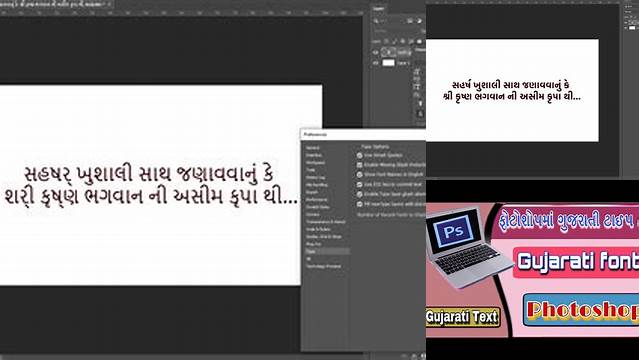
Gujarati Fonts For Photoshop CC: Free Download Guide
Understanding Gujarati Fonts for Photoshop CC
Hey guys! So you're looking to jazz up your designs with some awesome Gujarati fonts, specifically for Photoshop CC? That's a fantastic idea! Gujarati script has such a rich history and beautiful aesthetic, and incorporating it into your creative projects can really make them stand out. Whether you're a graphic designer, a blogger, or just someone who wants to express themselves in Gujarati, having access to a variety of high-quality Gujarati fonts is key. Photoshop CC, being the industry standard for image editing and design, offers a powerful platform to work with these fonts. However, the process of finding, downloading, and installing them can sometimes feel a bit daunting, especially if you're new to it. Don't worry, though! This guide is here to walk you through everything you need to know. We'll cover where to find free Gujarati font downloads, how to ensure they're compatible with Photoshop CC, and the best practices for using them to achieve stunning visual results. We'll dive into different font styles that capture the essence of Gujarati culture, from traditional calligraphy to modern, clean sans-serifs. By the end of this, you'll be a pro at integrating these beautiful scripts into your digital creations, making your designs not only informative but also visually captivating. Let's get started on unlocking the full potential of Gujarati typography in your Photoshop workflow!
Exploring Different Gujarati Font Styles
Alright, let's talk about the sheer variety of Gujarati font styles you can find out there, guys. It's not just about having letters; it's about the feel and character each font brings to your design. When you're looking for Gujarati fonts for Photoshop CC, you'll discover a spectrum that ranges from the deeply traditional and ornate to the sleek and contemporary. Think about the classic, flowing calligraphy that evokes a sense of heritage and elegance. These fonts often have intricate curves and flourishes that are perfect for invitations, religious texts, or designs aiming for a vintage appeal. Then, you have the more modern, minimalist sans-serif Gujarati fonts. These are fantastic for digital interfaces, branding, headlines, and any project where readability and a clean aesthetic are paramount. They offer a crisp, clear look that's easy on the eyes, even in smaller sizes. Some fonts might mimic the look of handwritten Gujarati, giving your work a personal and authentic touch. Others are designed with specific purposes in mind, like display fonts that are bold and impactful for large-format designs or body text fonts that ensure maximum legibility for longer passages. Understanding these different categories will help you choose the perfect font to match the mood and message of your project. Don't be afraid to experiment! Trying out various styles of Gujarati fonts is part of the fun and essential for developing your unique design signature. Remember, the right font can transform a good design into a great one.
Using Gujarati Fonts Effectively in Photoshop CC
Now that you've got your Gujarati fonts installed in Photoshop CC, let's talk about using them like a pro, guys! It's not just about slapping text on a canvas; it's about making that text sing. When you select your Gujarati font using the Text Tool, pay attention to the Character panel. This is where the magic happens. You can adjust the font size, leading (line spacing), kerning (space between specific characters), and tracking (overall letter spacing) to create beautiful typographic arrangements. For Gujarati script, proper kerning and tracking can be especially important to ensure readability and aesthetic balance, as the script has its own unique shapes and connections. Don't forget about OpenType features if your font supports them! Many advanced Gujarati fonts offer alternate character designs, ligatures (combined characters), or swashes that can add a unique flair. You can usually access these through the Glyphs panel in Photoshop (Window > Glyphs). Experiment with different font weights and styles if your chosen font family offers them – a bold Gujarati font for a headline can be very impactful. Also, consider the color of your text. Contrasting colors against your background are essential for readability. Remember to utilize Photoshop's layer styles! Effects like drop shadows, outlines (stroke), or glows can add depth and dimension to your Gujarati text, making it pop. Finally, always preview your text in the context of your overall design. Does it complement the images? Does it convey the intended message clearly? Effective use of Gujarati fonts is all about balancing aesthetics with legibility and ensuring the typography enhances, rather than distracts from, your design's message.
Optimizing Gujarati Text in Your Designs
Let's dive deeper into making your Gujarati text look amazing in Photoshop CC, guys. Beyond just picking a font, there are several techniques you can employ to really optimize the appearance and impact of your Gujarati typography. Firstly, readability is king. No matter how fancy a font looks, if people can't easily read the Gujarati words, your design won't be effective. Ensure sufficient contrast between your text color and background. Test different font sizes and weights to find what works best for the intended viewing distance – a font that looks great on a billboard might be illegible on a business card. Consider the layout too. Use the paragraph settings in Photoshop to control alignment, indentation, and hyphenation (though hyphenation rules for Gujarati might differ, so be mindful). Sometimes, adjusting the baseline shift for specific characters or words can help improve the visual flow, especially with scripts that have varying ascender and descender heights. Creative text effects can also elevate your design. Experiment with gradients within your text to add subtle or bold color transitions. Using the 'Warp Text' feature can create interesting curved or distorted text effects, but use this sparingly to maintain legibility. Remember layering! Placing text on top of images often requires a subtle background element, like a semi-transparent shape or a slight blur on the image behind the text, to ensure it stands out clearly. Always zoom in to check for any rendering issues or awkward spacing. Optimizing your Gujarati text ensures your message is not only seen but also understood and appreciated. It’s all about making that Gujarati script shine.
Choosing the Right Gujarati Font for Your Project
Selecting the perfect Gujarati font for your specific project is a critical decision, guys. It's like choosing the right outfit for an occasion – it needs to match the vibe and purpose. Think about the context: Is this for a formal wedding invitation? A vibrant festival poster? A modern corporate website? Or perhaps a personal blog post? Each scenario calls for a different typographic approach. For formal or traditional designs, opt for fonts that echo classic Gujarati calligraphy or have a dignified, serif-like quality. These fonts convey respect, heritage, and a sense of occasion. If your project is contemporary, minimalist, or aimed at a younger audience, clean sans-serif Gujarati fonts are usually the way to go. They project modernity, efficiency, and approachability. For branding, consider how the font reflects the personality of the brand – is it playful, sophisticated, bold, or subtle? Brand consistency is key, so choose a font that can be used across various touchpoints. When working with longer blocks of text, prioritize legibility. A highly decorative font might look stunning as a headline but could be a nightmare to read in paragraphs. Test your chosen font in different sizes and contexts. Does it hold up well when small? Does it have enough visual weight when large? Don't underestimate the power of a font pairing – sometimes combining a decorative Gujarati display font with a simple, readable body font can create a dynamic and appealing design. Ultimately, the best Gujarati font choice is one that serves your project's goals, resonates with your target audience, and enhances the overall message through clear and attractive typography.
Balancing Aesthetics and Readability
Achieving that sweet spot between stunning Gujarati aesthetics and crystal-clear readability is the holy grail for designers, guys. It’s a balancing act, for sure. Gujarati script, with its unique visual characteristics, presents its own set of challenges and opportunities in this regard. A font might be incredibly beautiful, with intricate curves and elegant flourishes, but if it makes the text hard to decipher, it fails in its primary function. Conversely, a super-readable font might lack the visual appeal to capture attention. The key is to find Gujarati fonts that offer a harmonious blend. Start by considering the primary purpose of your text. Is it a headline meant to grab attention, or body copy meant to inform? Headlines can often get away with more decorative or stylized fonts, as long as they are still somewhat legible at a glance. Body text, however, demands clarity above all else. Look for fonts with generous spacing between letters and words, clear distinction between similar characters, and a comfortable x-height (the height of lowercase letters like 'x'). When choosing, try setting a sample paragraph in your potential fonts. View it at the intended size and from a typical reading distance. Does your eye glide smoothly over the text, or do you find yourself stumbling? Typography best practices often suggest using sans-serif fonts for digital screens and body text due to their clean lines, while serif fonts can add a touch of class to print or headlines. However, with Gujarati, you'll find excellent readable options in both sans-serif and serif-inspired styles. Experimenting with font weights – using a regular or light weight for body text and a bold or black weight for headlines – is also a great way to create hierarchy while maintaining readability and aesthetic appeal.
Conclusion: Mastering Gujarati Fonts in Photoshop
So there you have it, guys! We've journeyed through the exciting world of finding, downloading, installing, and masterfully using Gujarati fonts in Photoshop CC. From understanding the diverse styles available to troubleshooting pesky technical issues, you're now equipped with the knowledge to make your Gujarati typography truly shine. Remember the key takeaways: always source your fonts from reputable places, ensure compatibility by checking file formats (.TTF, .OTF), and install them correctly on your system. Within Photoshop CC, leverage the power of the Character and Paragraph panels for precise control over spacing and layout, and don't shy away from using the Glyphs panel to access unique character alternates and ligatures. Creative use of layer styles, clipping masks, and blending modes can transform your Gujarati text into stunning visual elements. Whether you're crafting intricate typography art, designing eye-catching banners, or simply adding elegant Gujarati text to a photo manipulation, the principles remain the same: prioritize readability, consider the context of your design, and let your creativity flow. The ability to effectively incorporate beautiful Gujarati script into your digital creations opens up a whole new realm of design possibilities, allowing you to connect with audiences and express ideas with cultural richness and visual appeal. Keep practicing, keep experimenting, and enjoy the process of bringing your Gujarati design projects to life with stunning typography! Your journey into expert Gujarati typography has just begun.